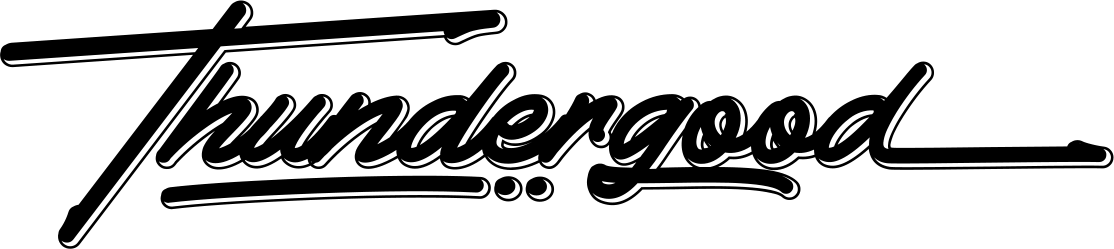
Thundergood Font
Thundergood and its bold stylish characters are great for giving your text a more noticeable outline, even though lowering its readability a touch. Its capitals and lowercase letters retain a different handwritten style that leads to a natural and striking design.
This script font is not only a perfect choice for logos and signs, but it also does an incredible job in terms of adding a bit of color to invitations, website headers, and so on.